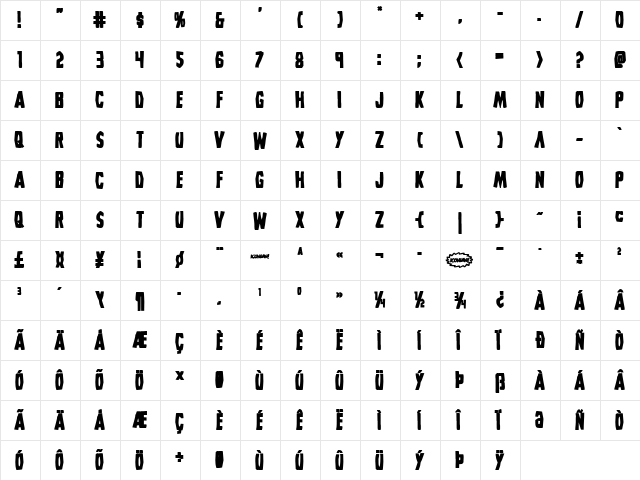
Grim Ghost Bold Bold Font Preview
Grim Ghost Bold Bold
Grim Ghost Bold Bold Font Details
Design Context for Grim Ghost Bold Typeface
Grim Ghost Bold offers clean, dependable letterforms without strong stylistic allegiance, making it a practical choice for designers who need flexibility. The heavy weight commands attention and anchors typographic hierarchies.